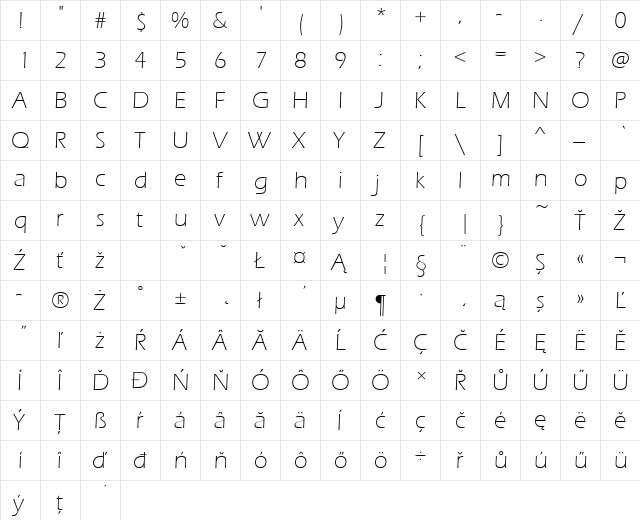
ErasItcTEELig Regular
Design Context for ErasItcTEELig Typeface
ErasItcTEELig offers clean, dependable letterforms without strong stylistic allegiance, making it a practical choice for designers who need flexibility.